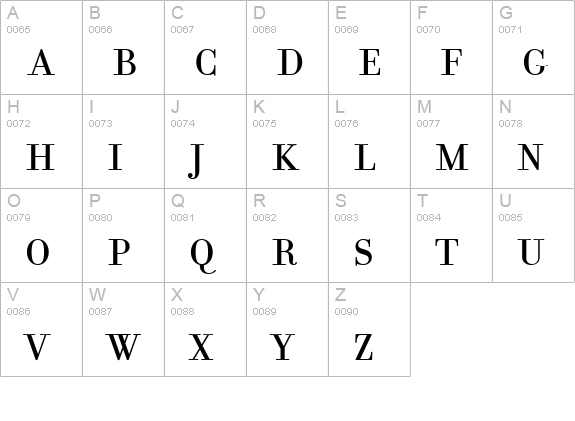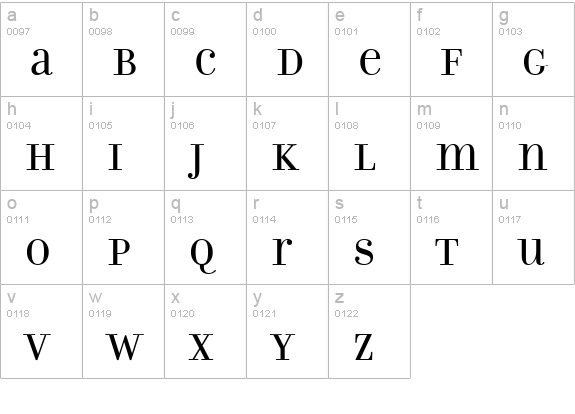
FilosofiaUnicase Regular Font Details
FilosofiaUnicase Regular is the standard, neutral variant in the FilosofiaUnicase typeface family \xE2\x80\x94 well suited to general body text, paragraphs, and standard typographic work.
FilosofiaUnicase Regular font is a unique and versatile typeface that combines elements of both serif and sans serif fonts. Its elegant design features distinctive letterforms with a touch of sophistication, making it suitable for a wide range of projects, from branding to editorial design. This font is available for free download at FontsMarket.com, where you can easily access and use it for your creative endeavors. Whether you're designing a logo, creating a website, or crafting a publication, FilosofiaUnicase Regular font will add a touch of elegance and professionalism to your work. With its clean lines and modern aesthetic, this font is sure to make a statement and elevate the visual appeal of any project. Download it today and unleash your creativity with this stunning typeface.